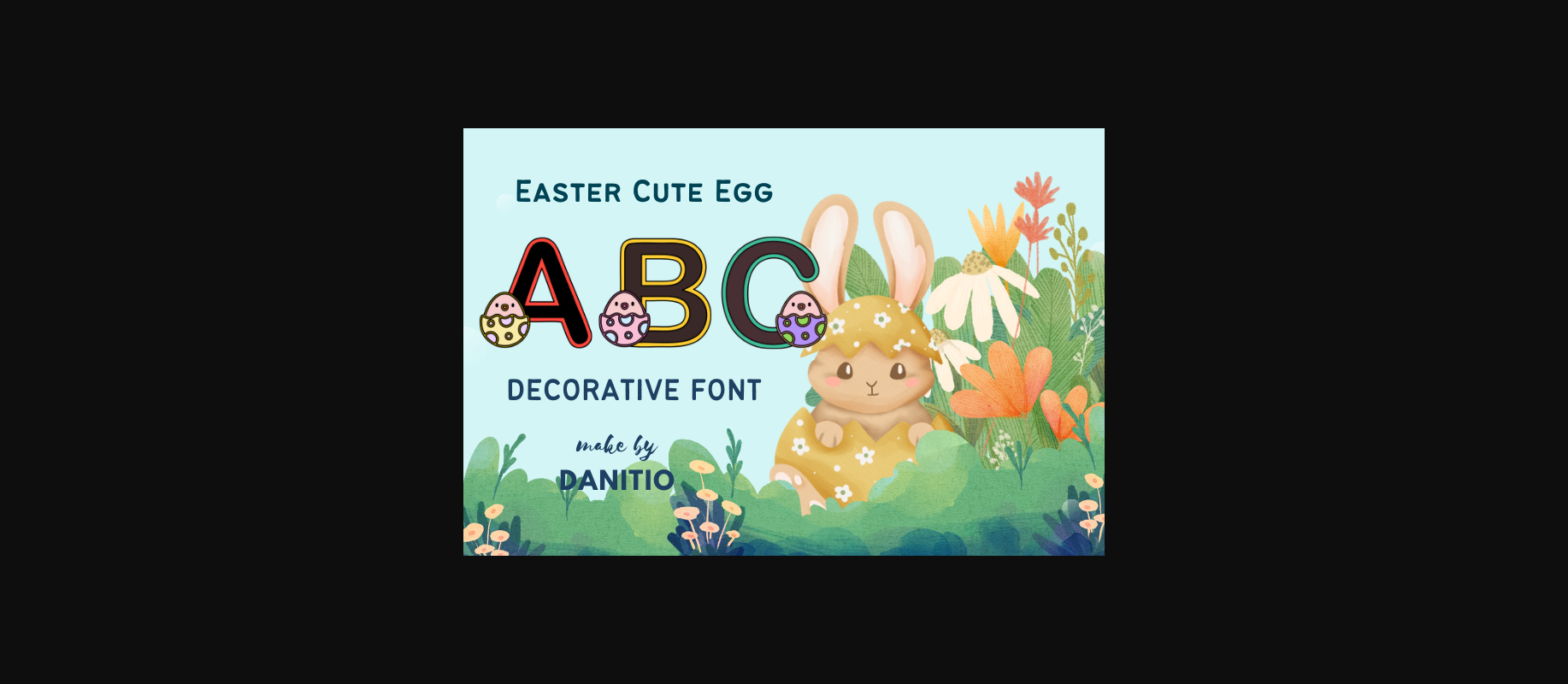
About Easter Cute Egg Font
Easter Cute Egg is an adorable all-caps decorative display font that brings joy to your designs. Each letter is adorned with a sweet little chick nestled inside a cracked egg, adding a playful and festive touch. Perfect for Easter-themed projects, invitations, or any design that needs a sprinkle of cuteness, this font adds a delightful element to your text. Capture the spirit of the season with Easter Cute Egg, where every letter is a charming surprise waiting to hatch in your creative endeavors.